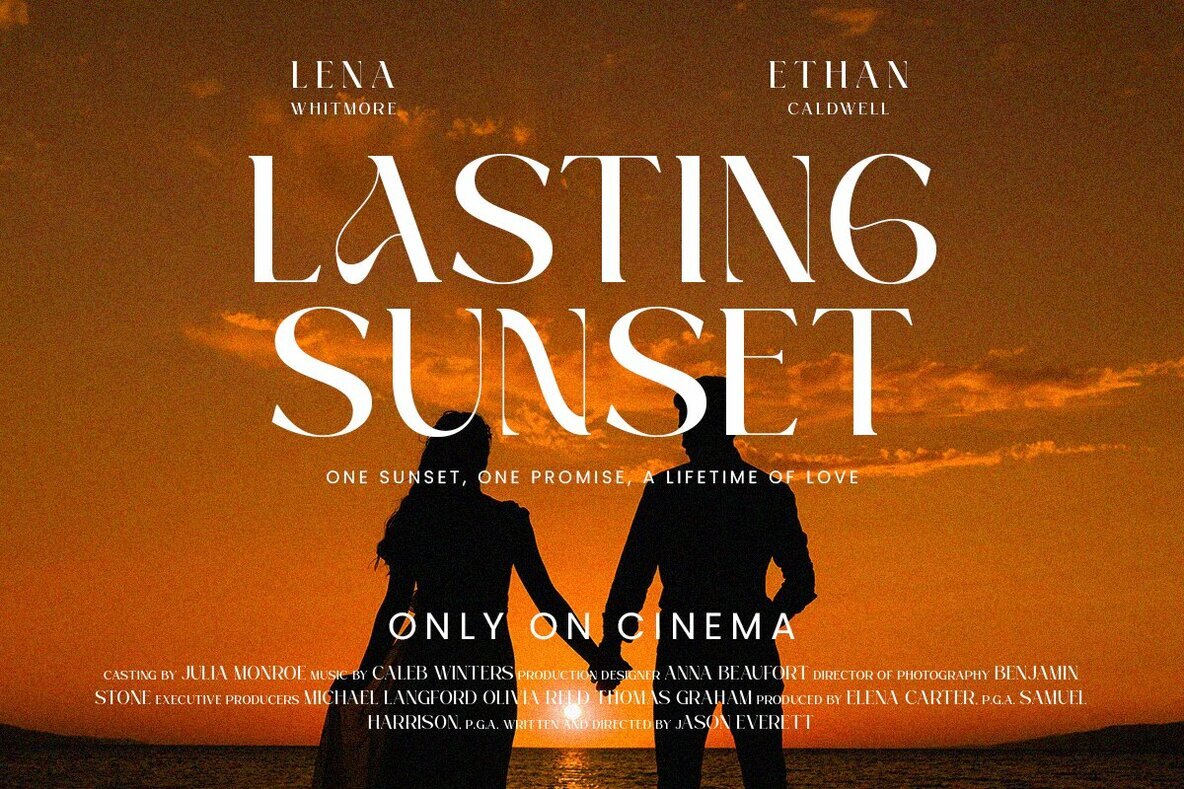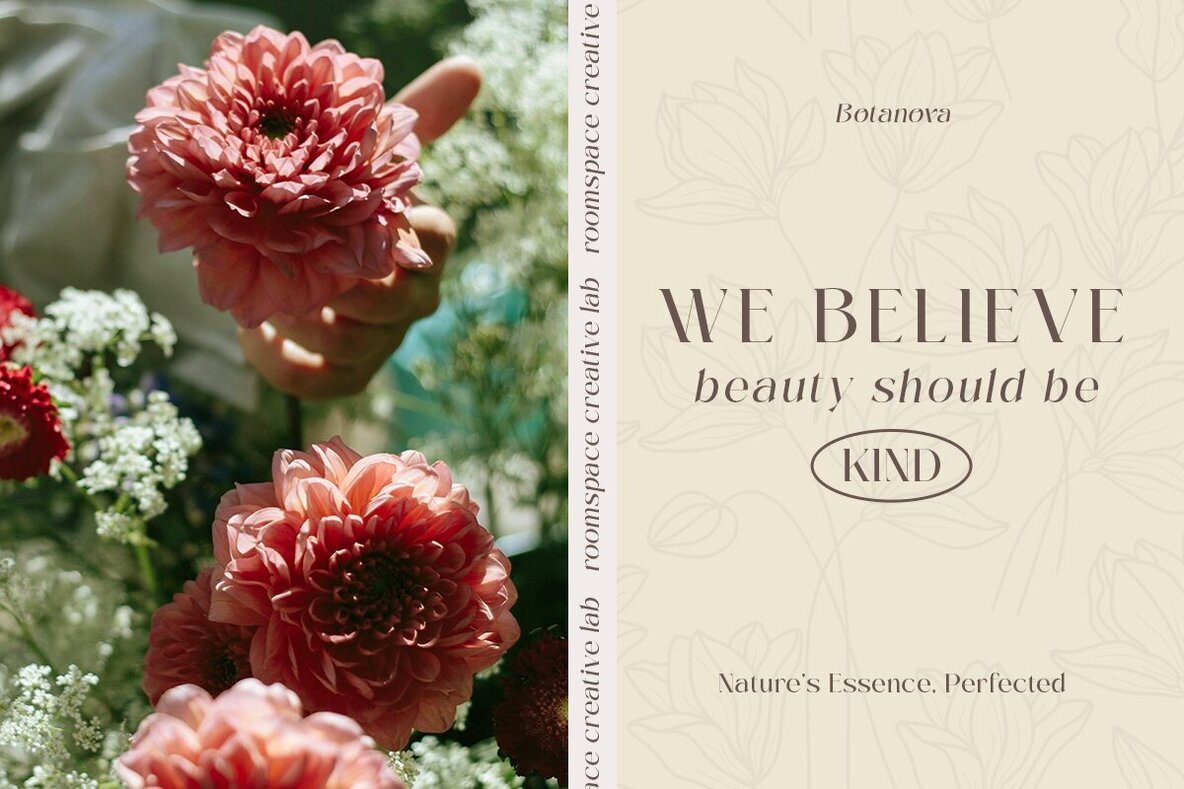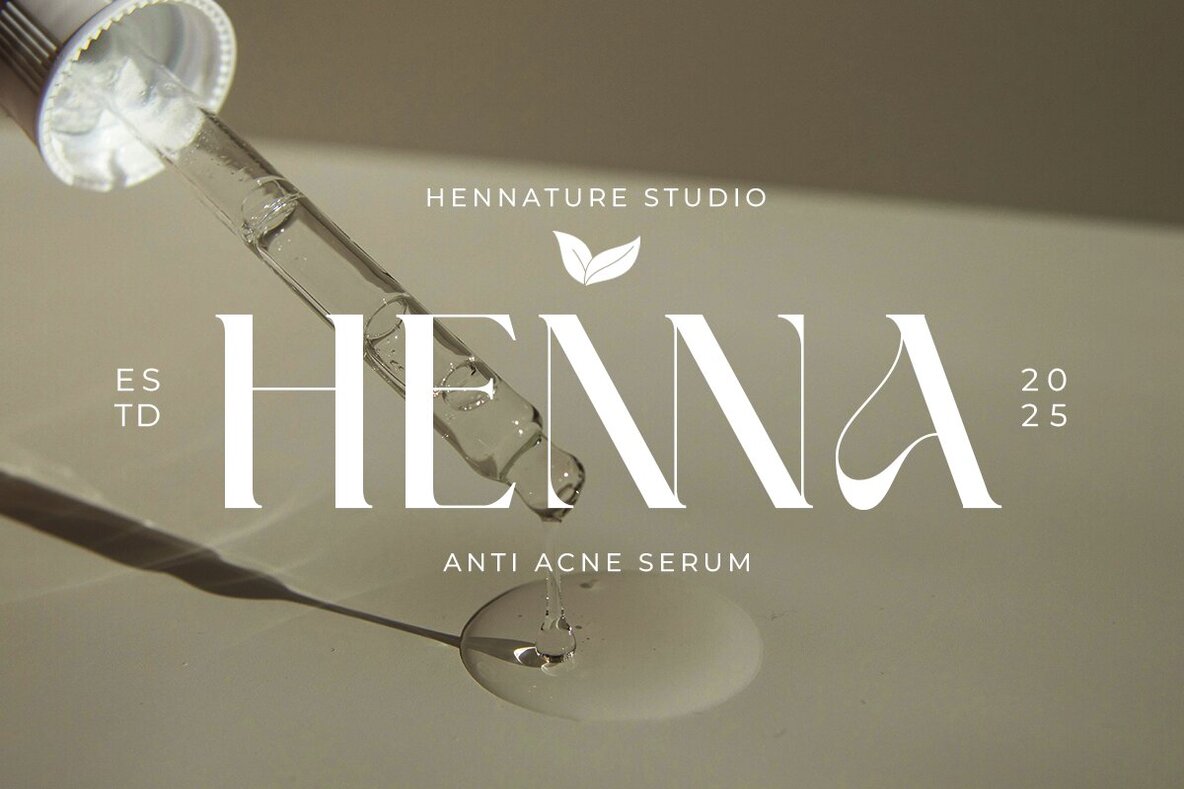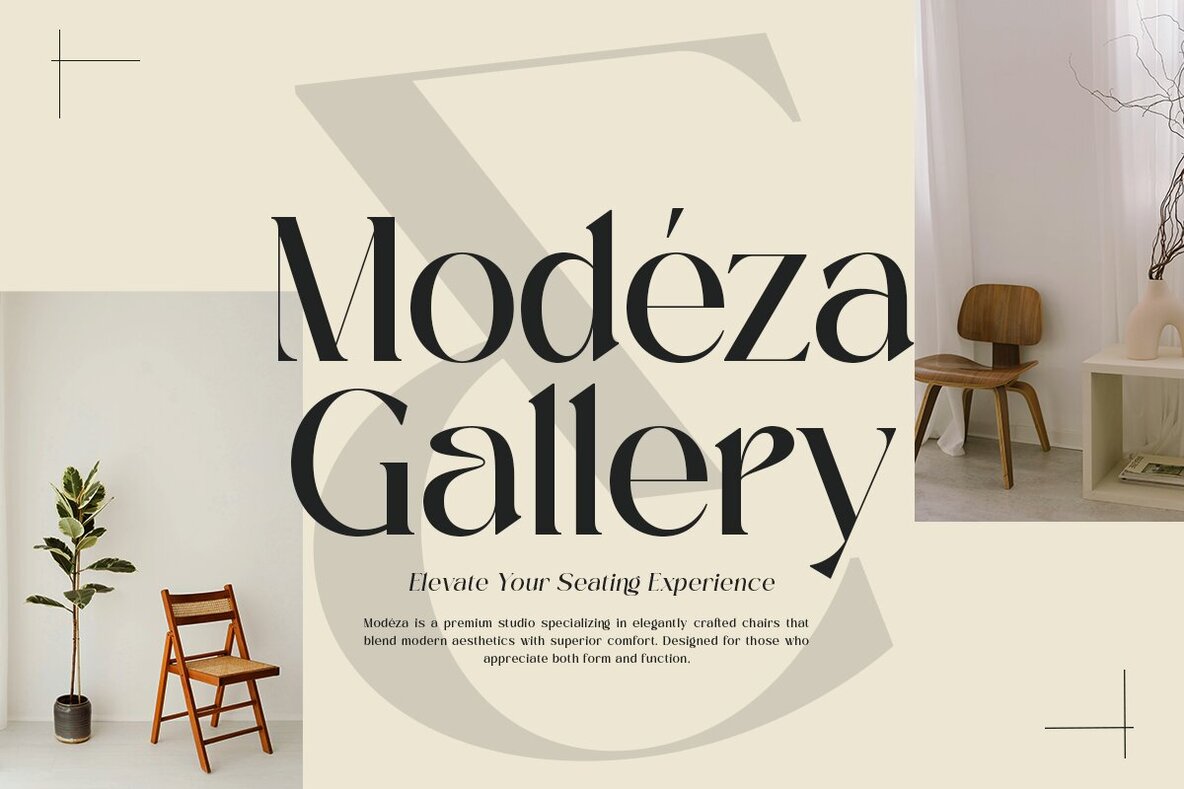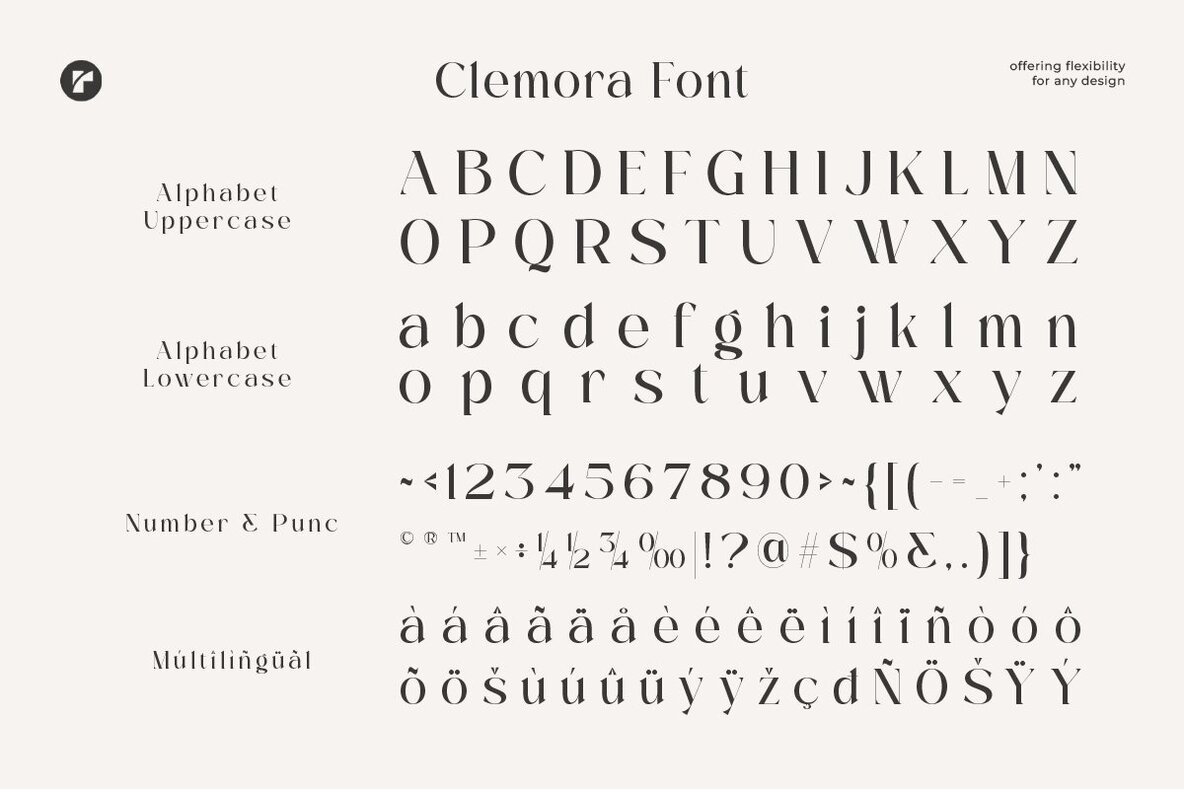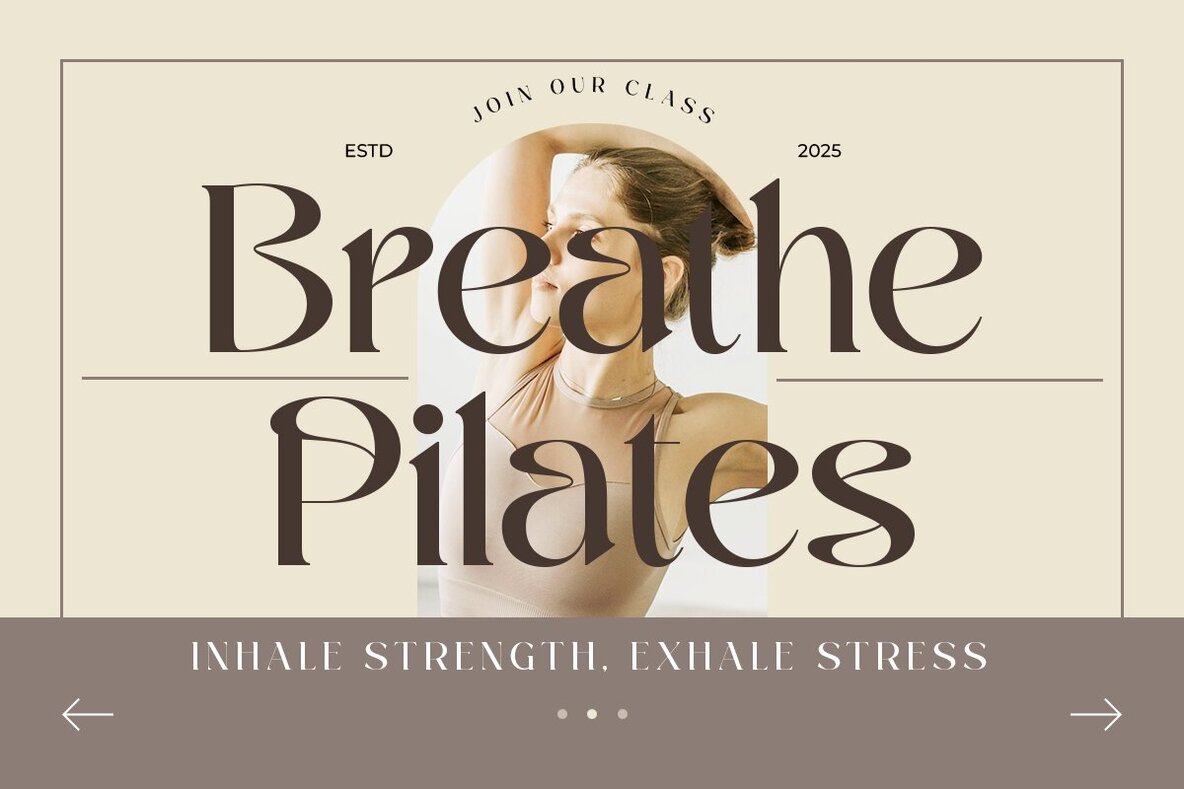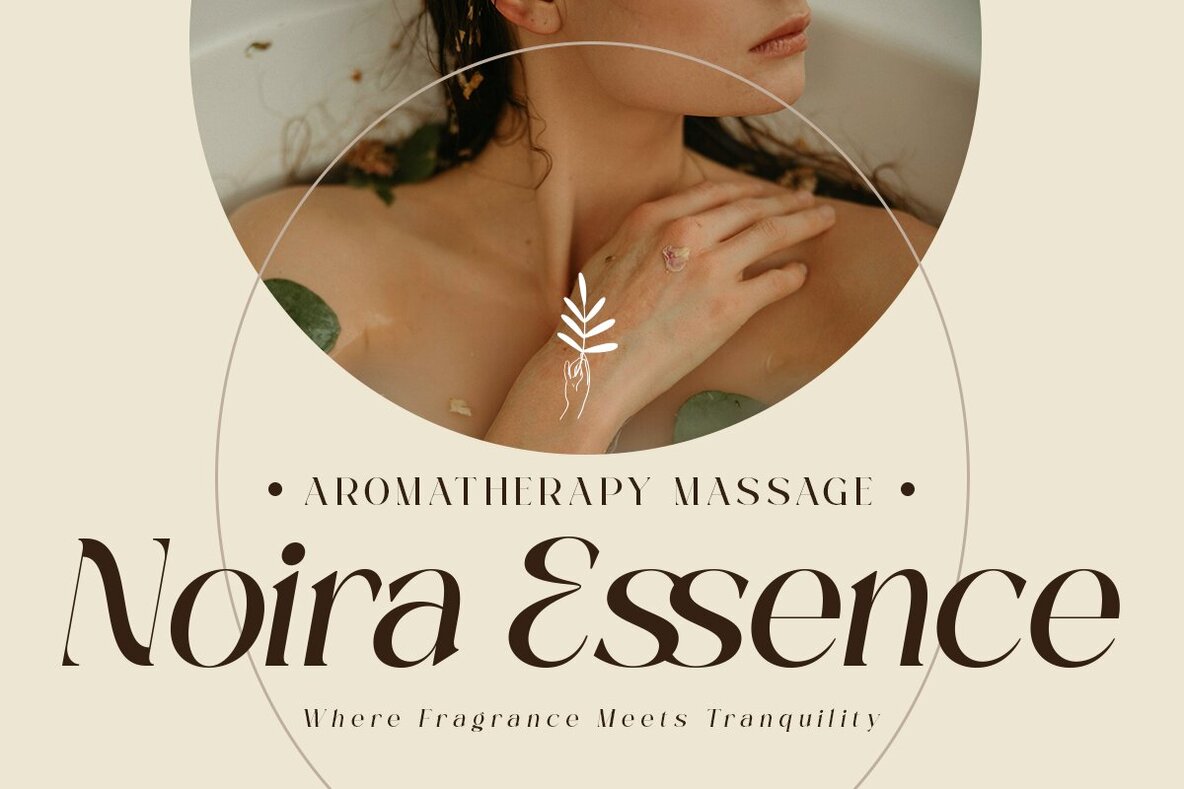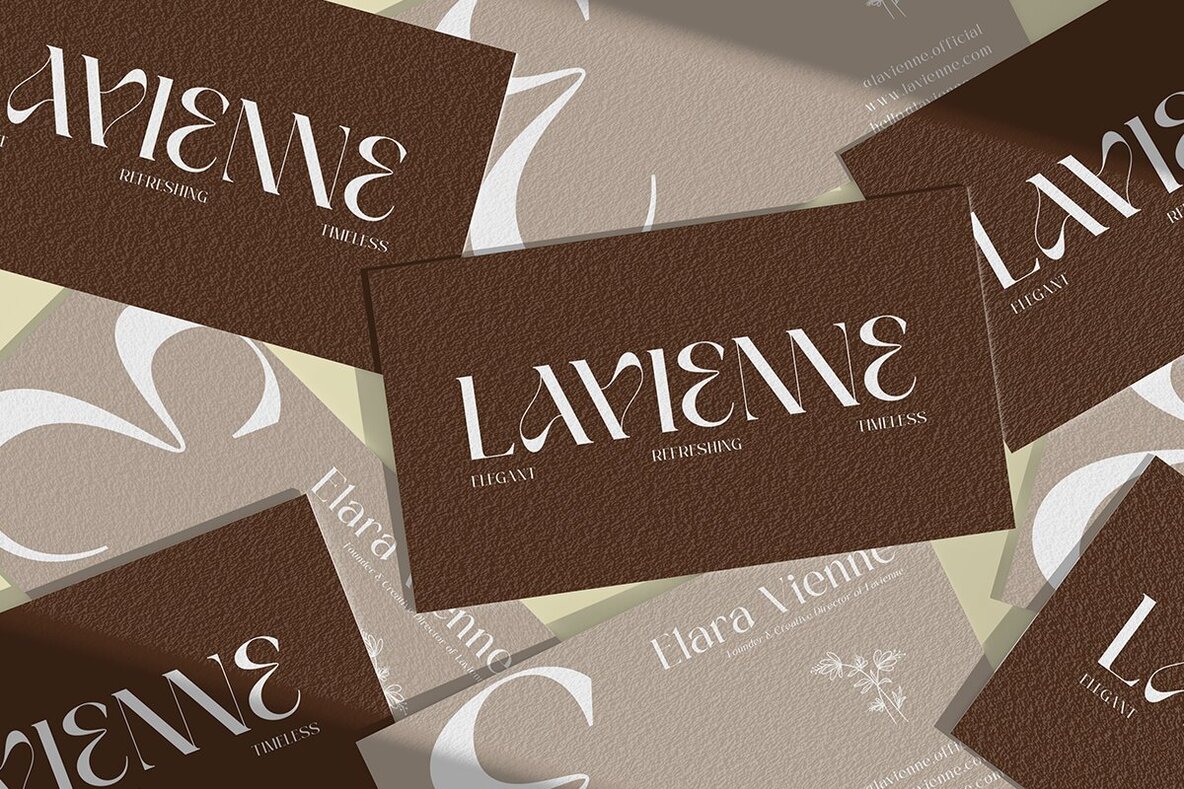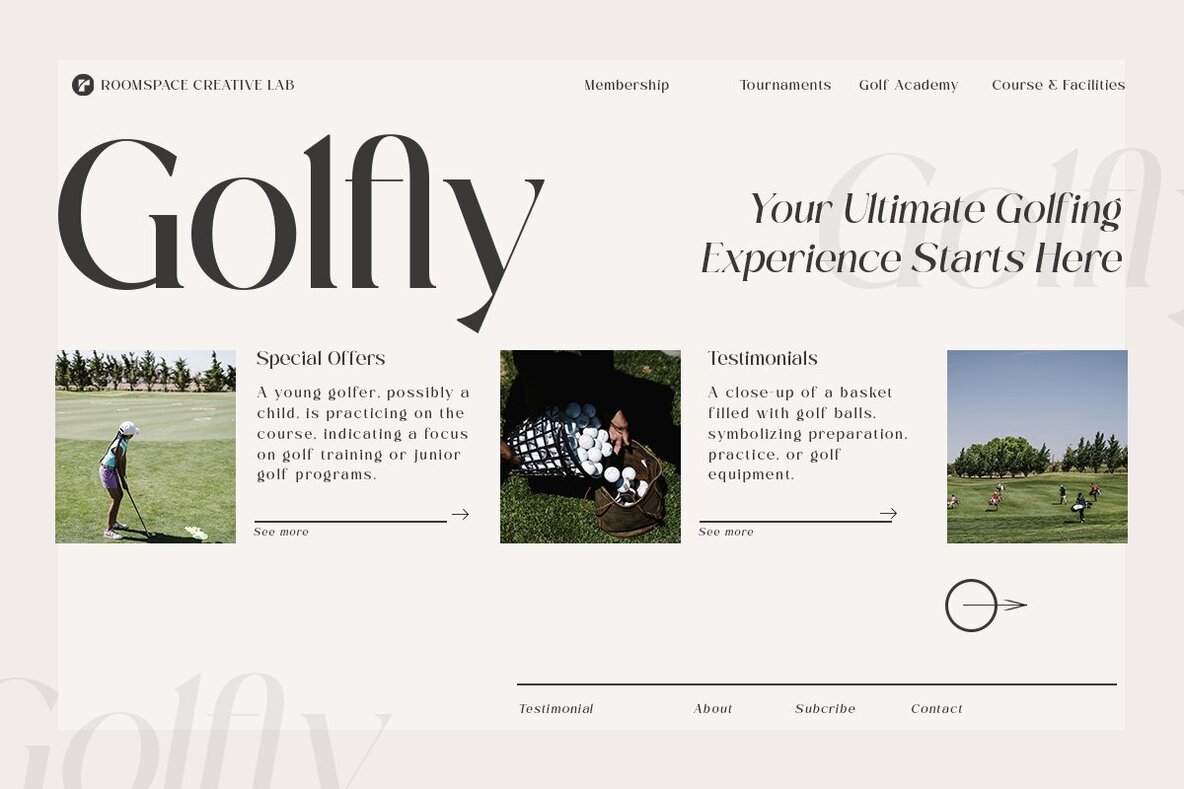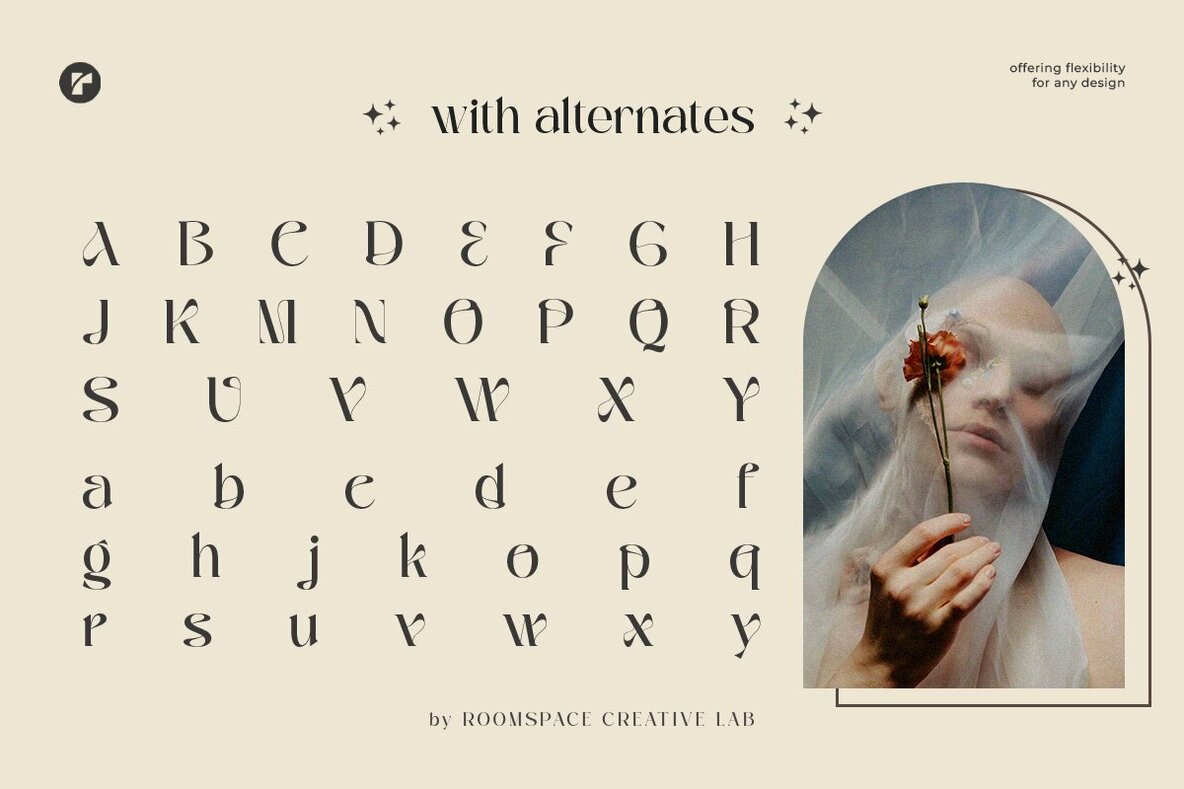
Clemora Font
Clemora is an elegant serif that blends classic sophistication with a modern touch. Inspired by the world of fashion and editorial design, Clemora delivers a feminine, sophisticated, and luxurious aesthetic, making it perfect for branding, weddings, logos, packaging, websites, and social media. With refined letterforms and a high-end look, Clemora is ideal for designers seeking a stylish, minimalist, and premium typeface. This font includes ligatures and unique letter alternates, allowing for creativity and exclusivity in every project. Support: